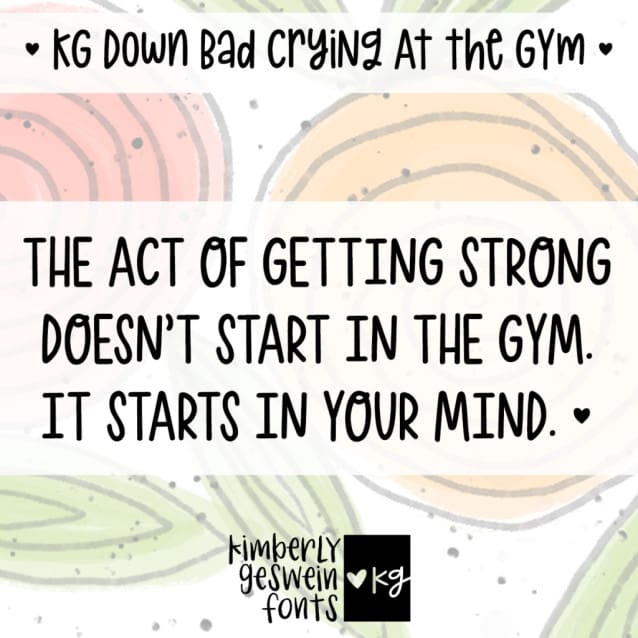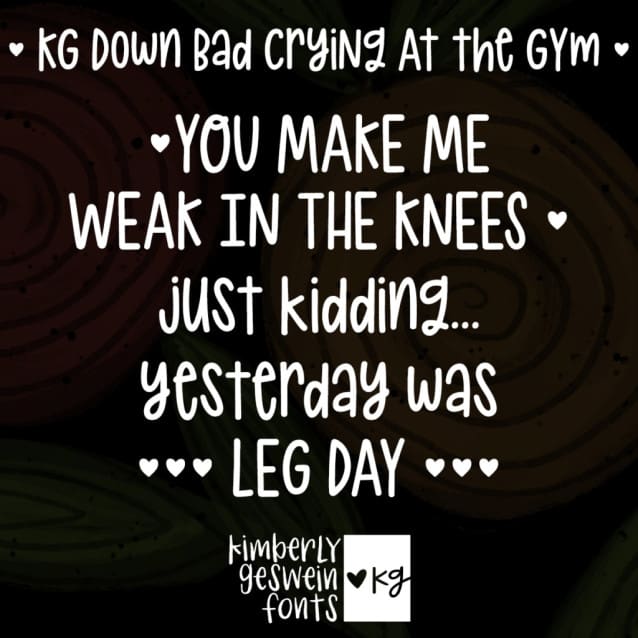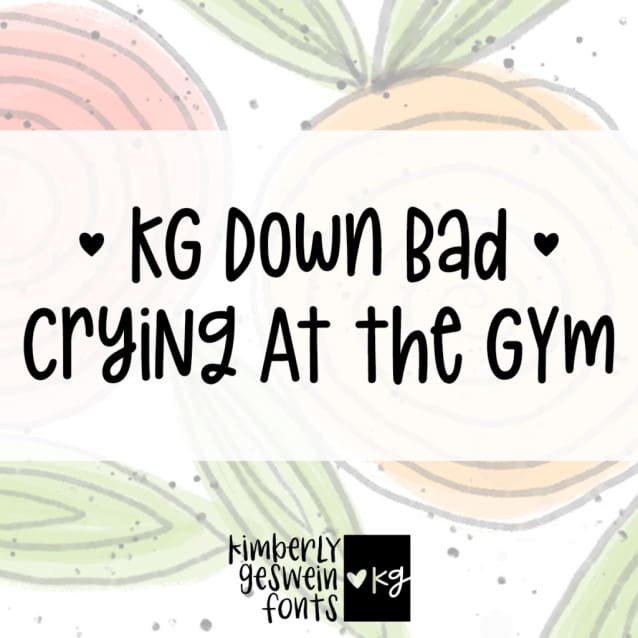
KG Down Bad Crying At The Gym Font
KG Down Bad Crying At The Gym Font is a whimsical unicase font full of personality. Something I love about unicase fonts is using varied baselines to give the font a slight bounce. I think this font works amazingly well in all capital letters and gives you a completely different look than standard typing gives you.